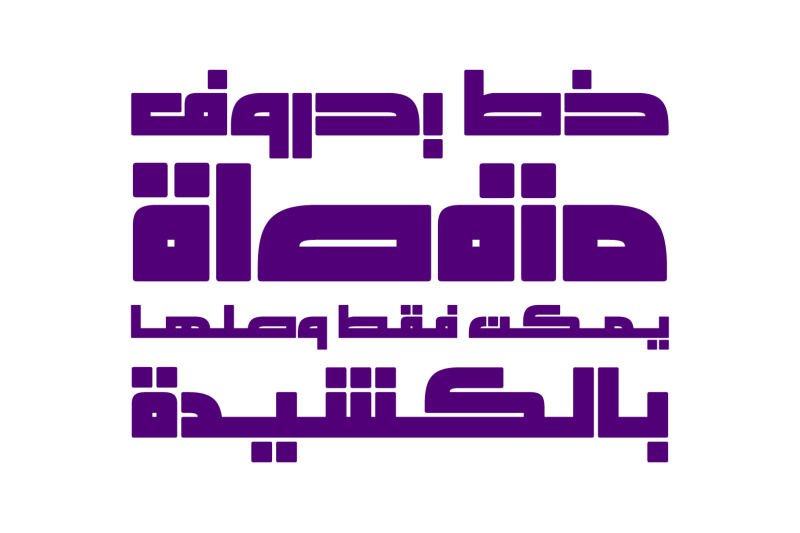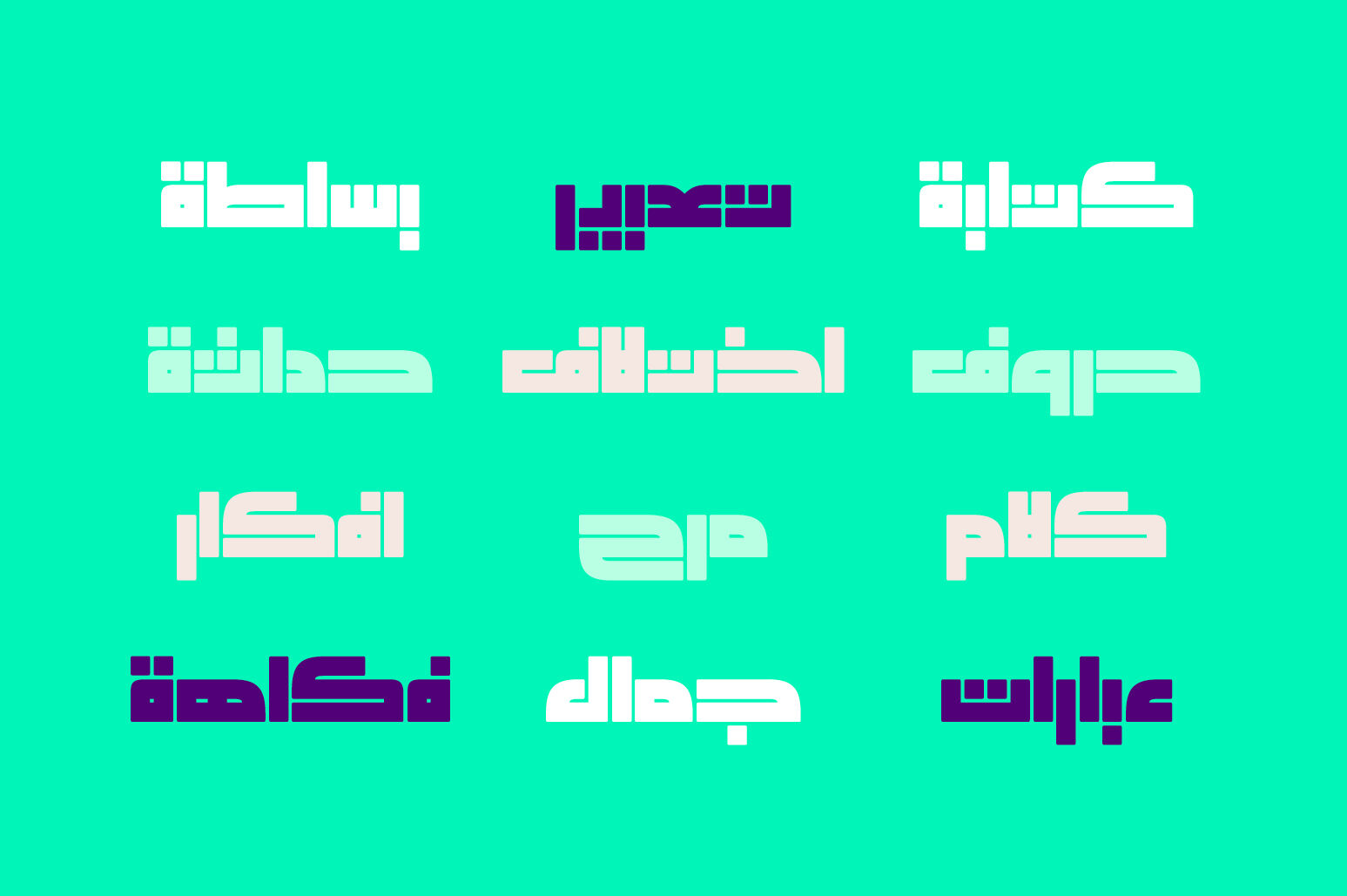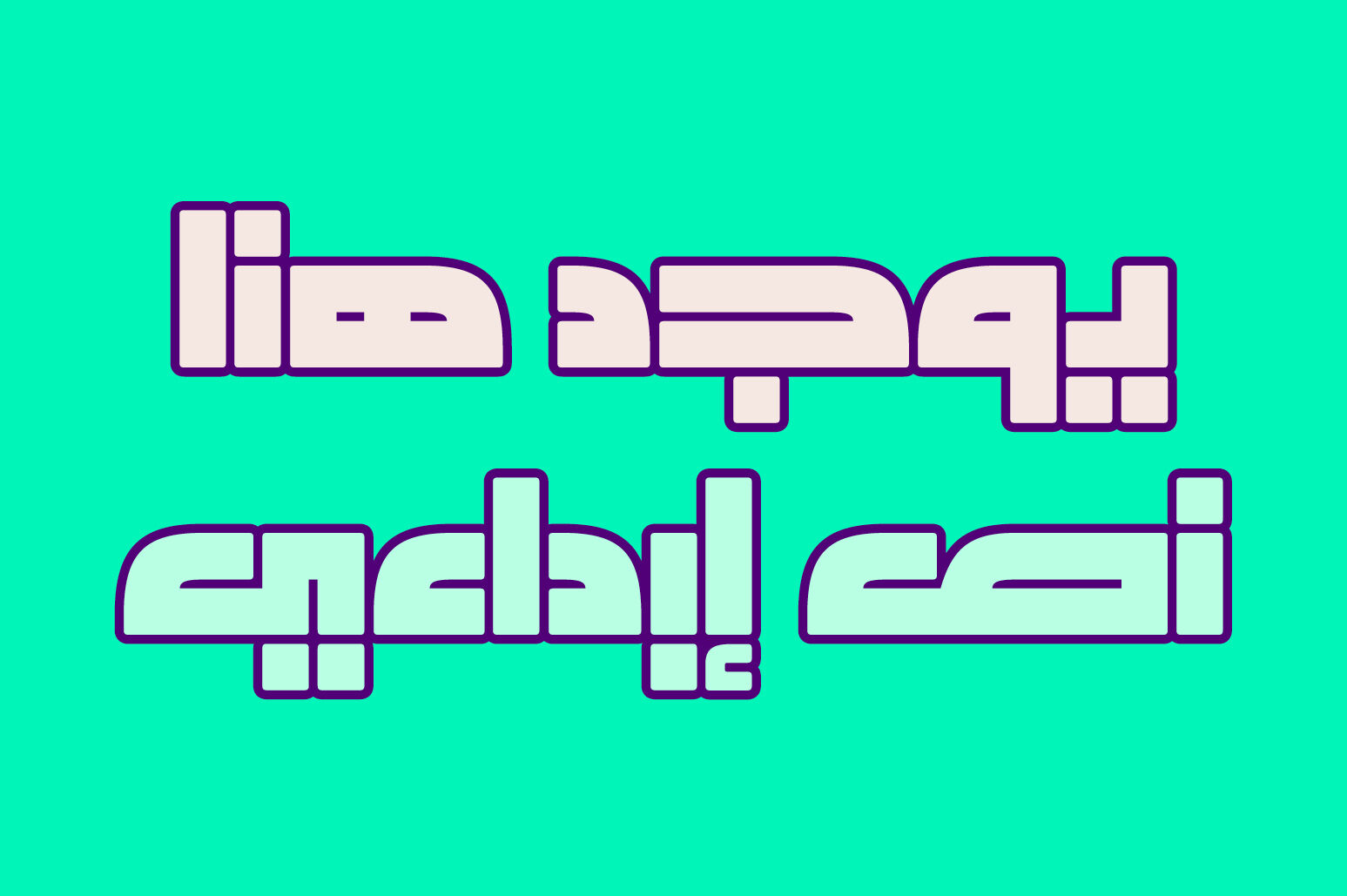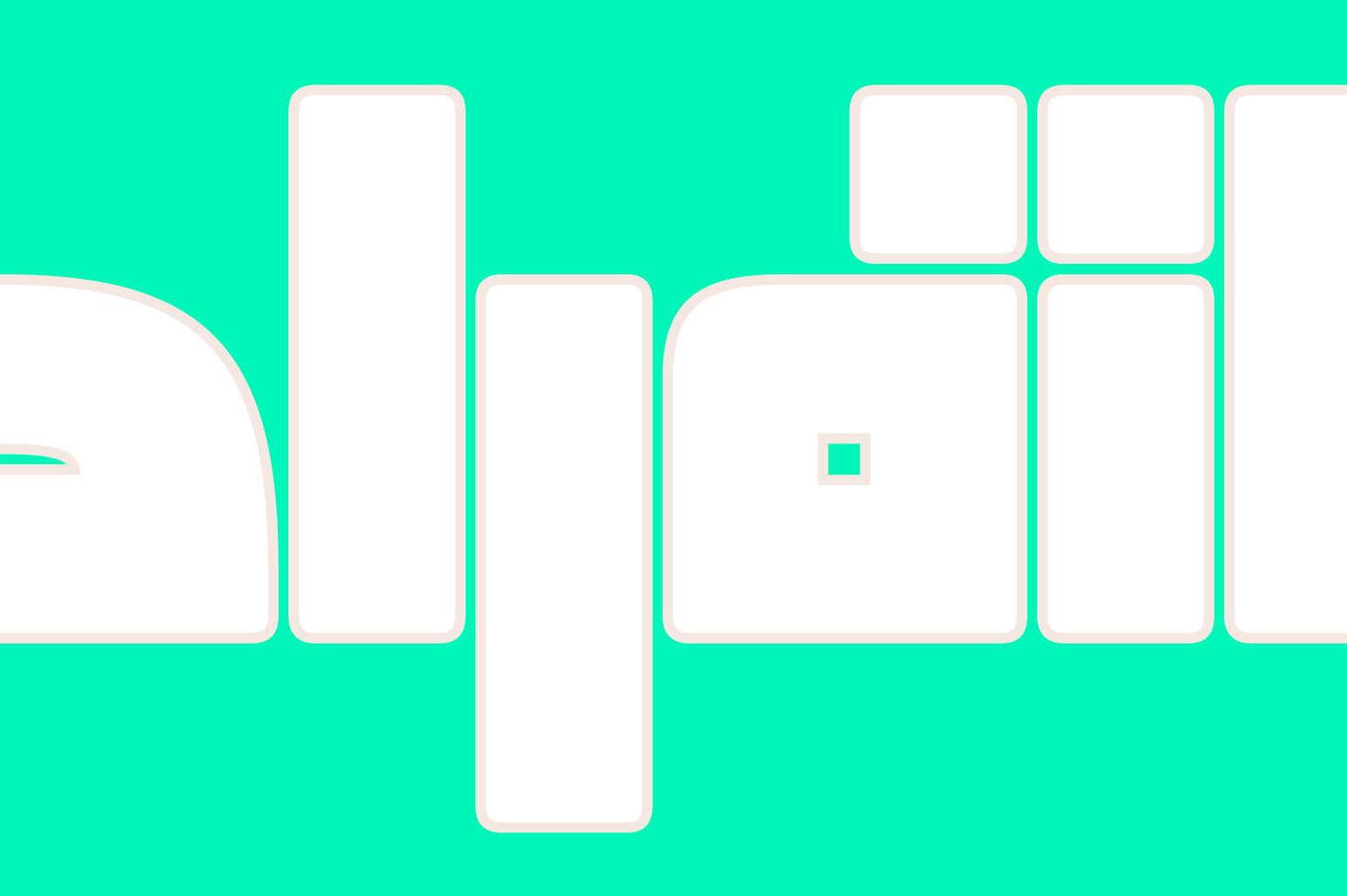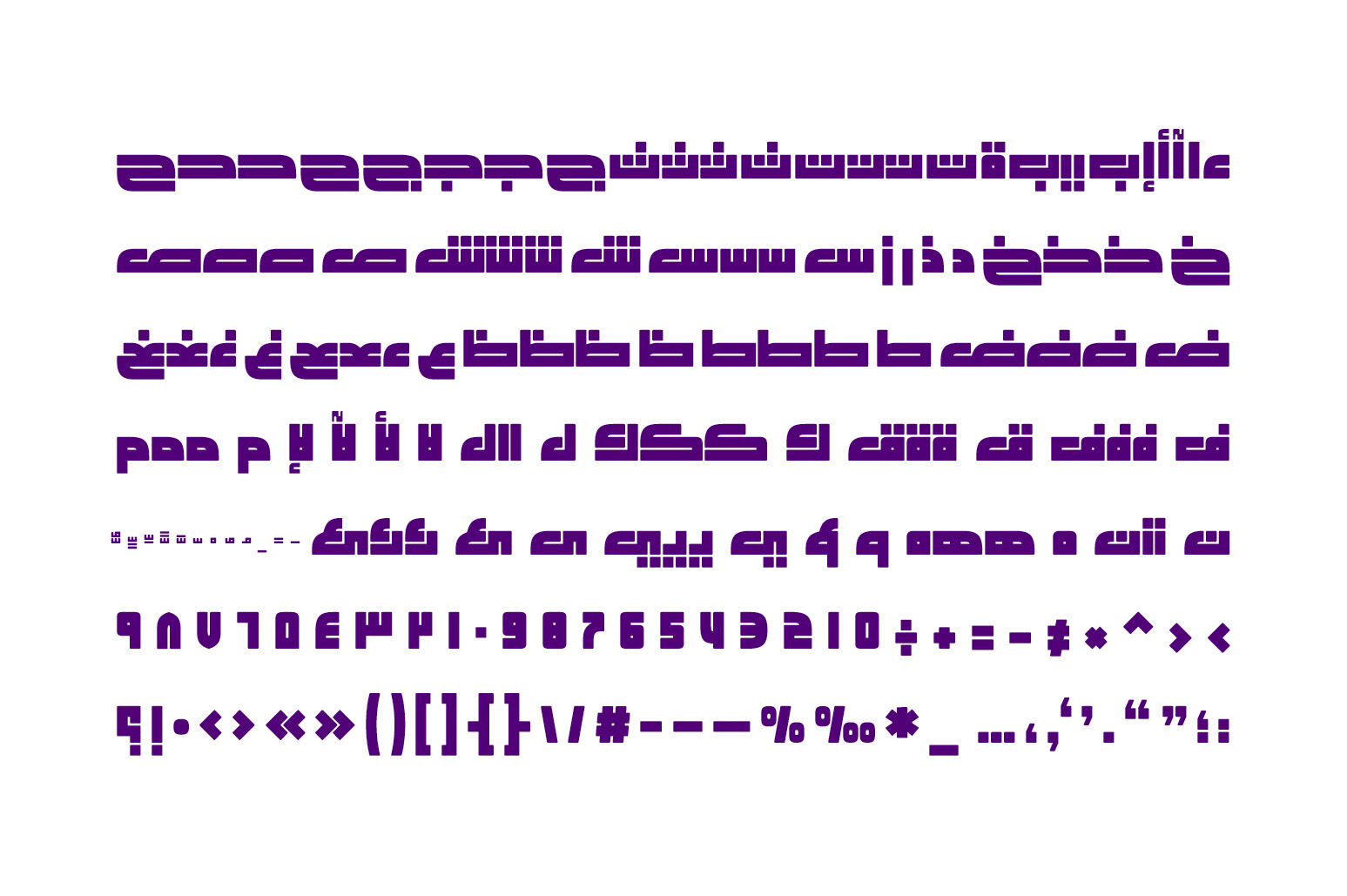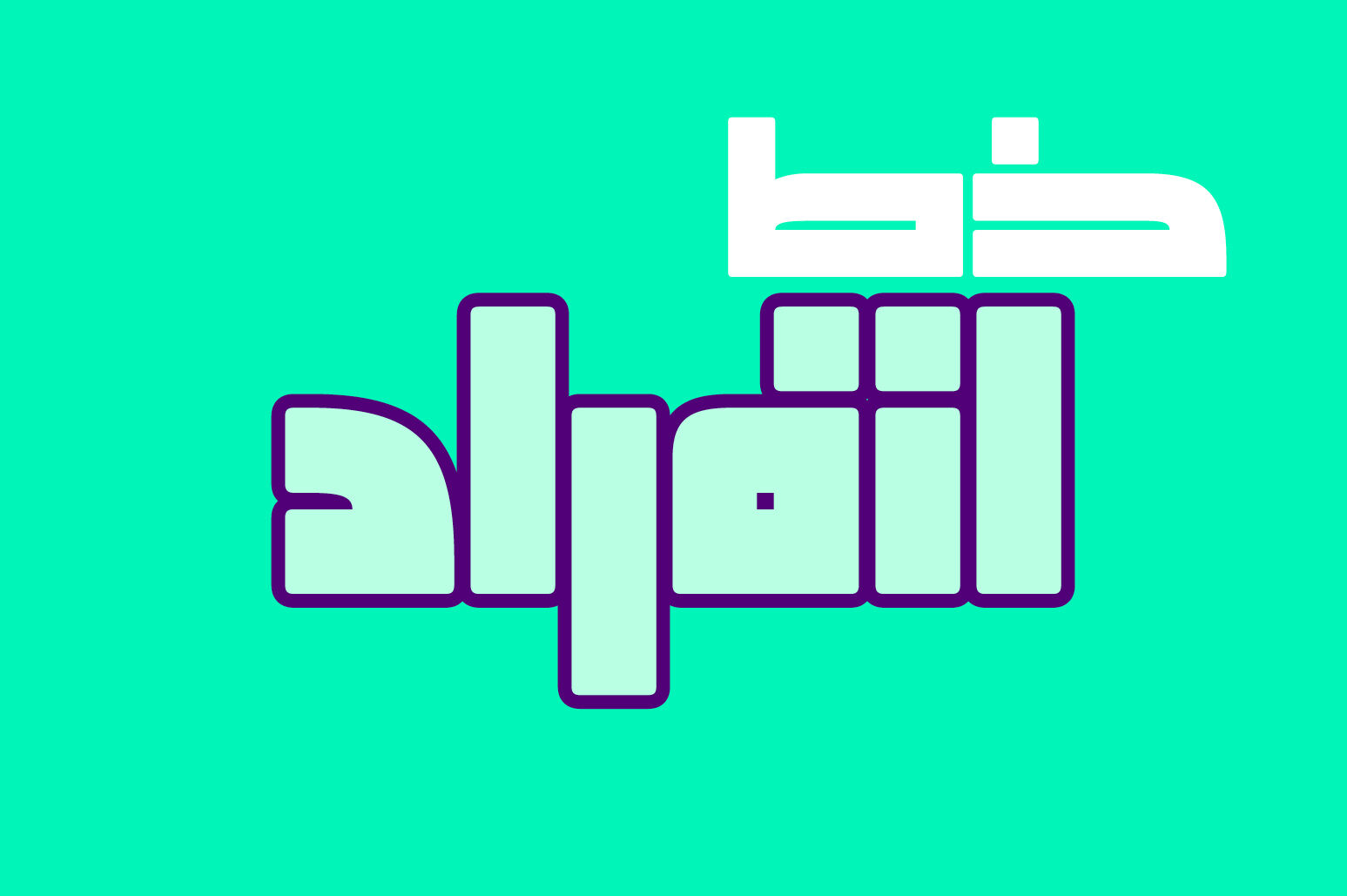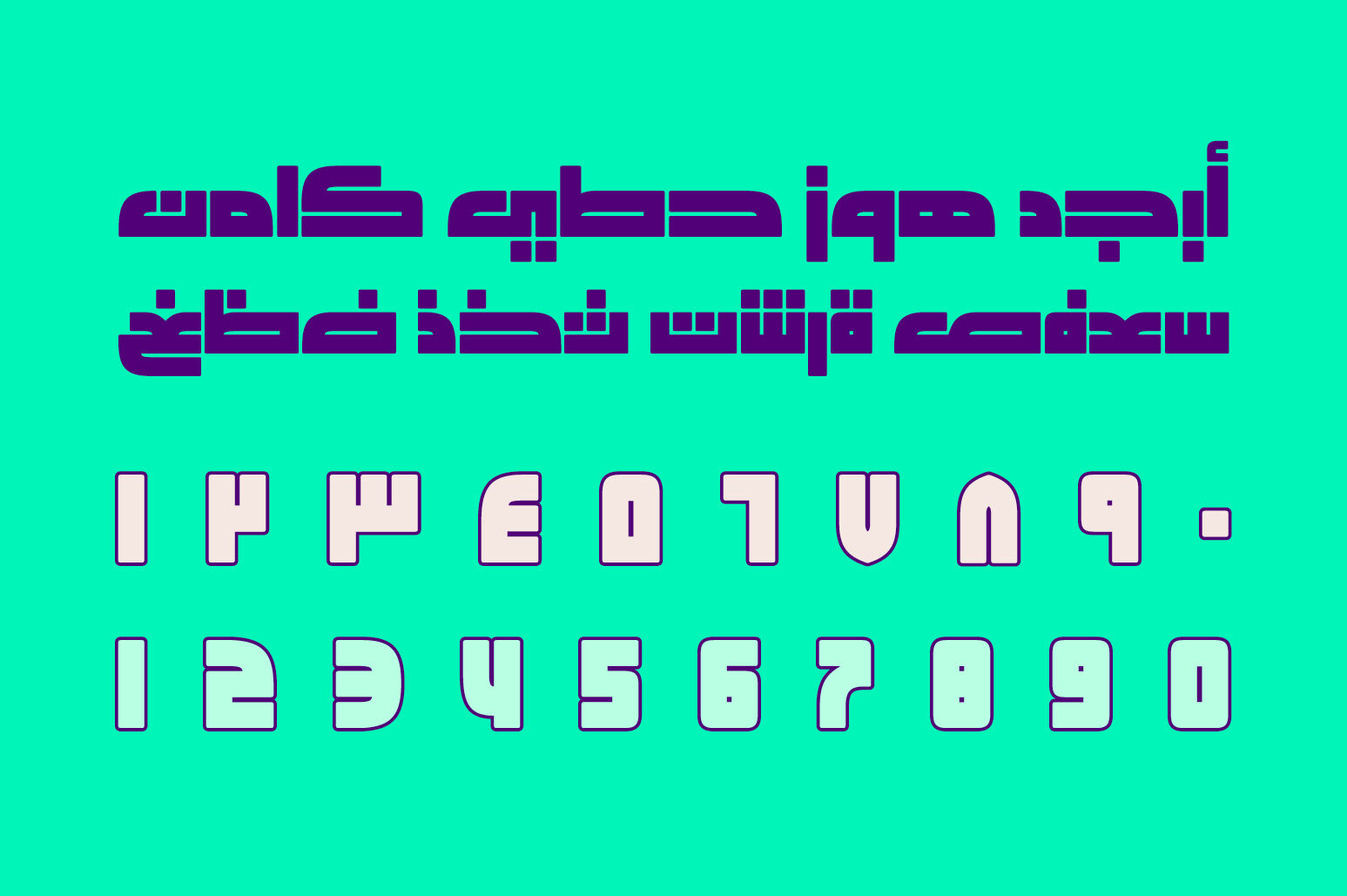
Enferad - Arabic Font
Enferad is a non-cursive Arabic font that features a single weight with a geometric structure and smooth -rounded edges. Enferad suits the display purposes including web design, advertising and creative titling.